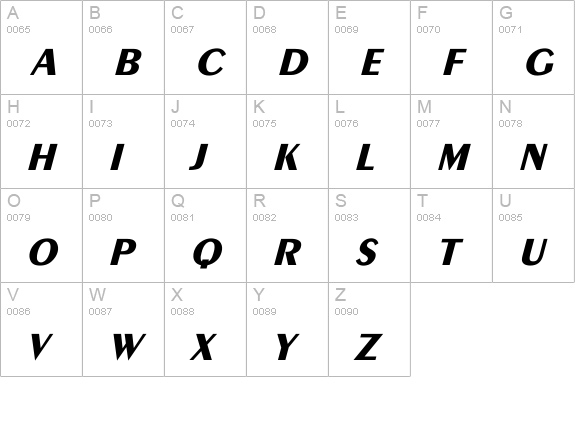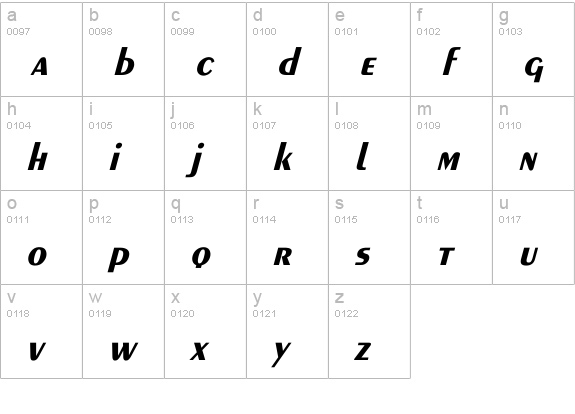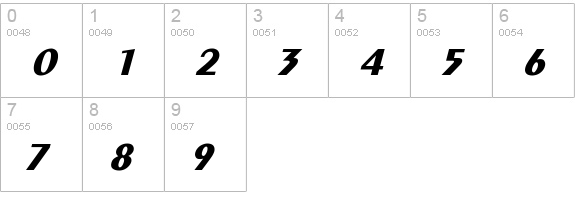
Exotic-Bold Italic is a strong, high-contrast, italic variant in the Exotic typeface family \xE2\x80\x94 well suited to headlines, attention-grabbing titles, and strong calls-to-action.
Introducing Exotic-Bold Italic font, a striking and captivating typeface that exudes a sense of mystery and sophistication. Its bold and italicized design adds a touch of modernity and flair to any project, making it perfect for headlines, logos, and branding materials. The unique and exotic aesthetic of this font sets it apart from traditional typefaces, making it ideal for projects that require a touch of originality and creativity. Best of all, Exotic-Bold Italic font is available for free download at FontsMarket.com. This means you can easily access and use this stunning font in your designs without any cost. Don't miss out on the opportunity to elevate your projects with the distinctive style of Exotic-Bold Italic font. Download it today and let your creativity shine!